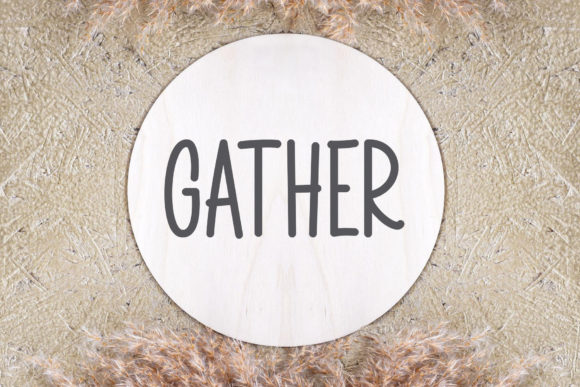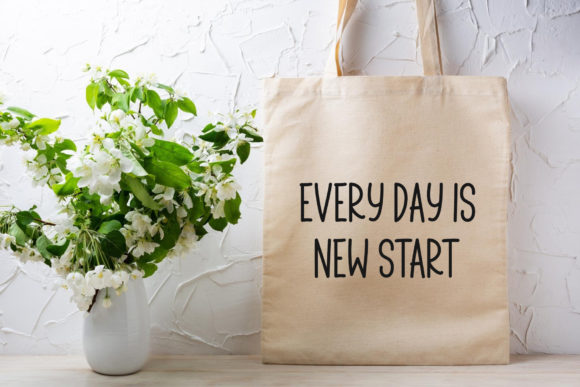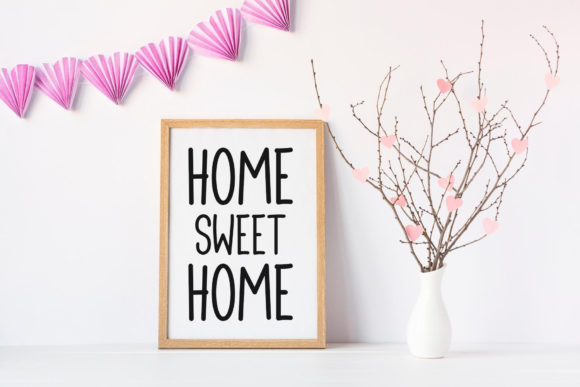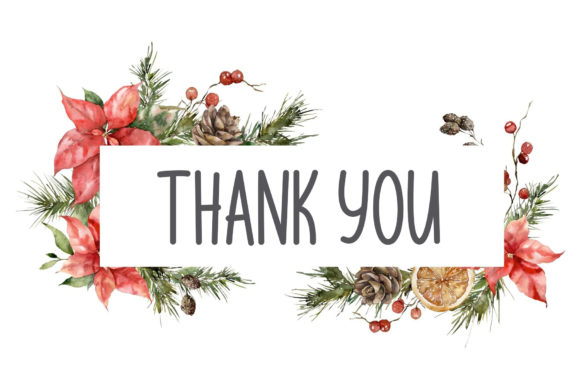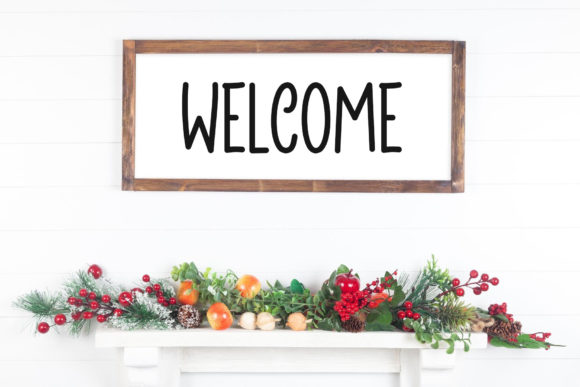
Treasure Font
About Treasure Font
Treasure is a simple and clean handwritten font. It is cool and friendly and it will most certainly fit into a wide range of creations. The only limit is your imagination.